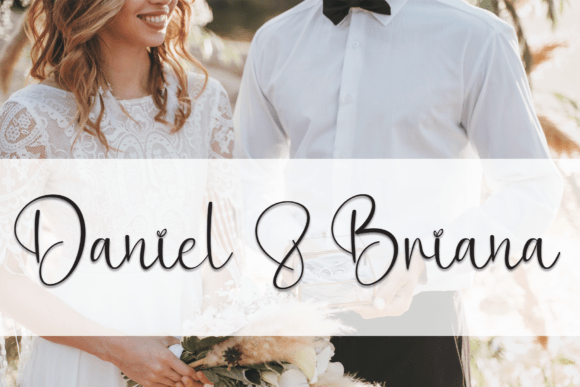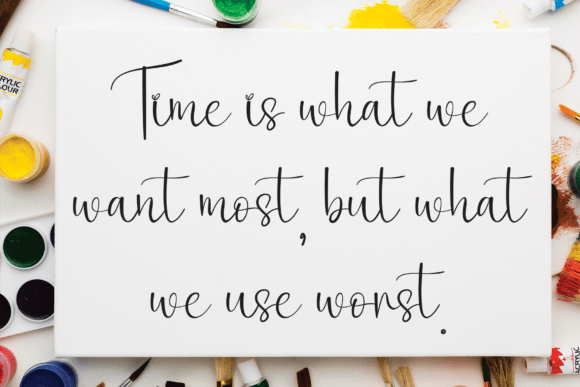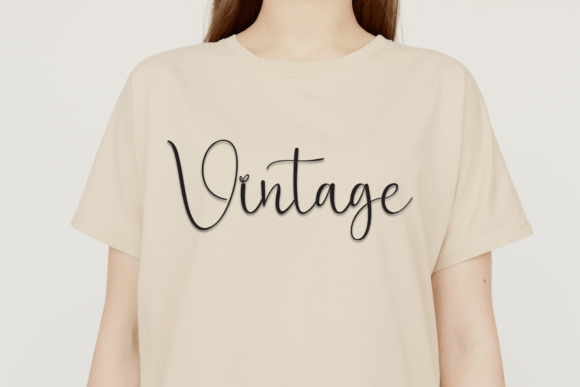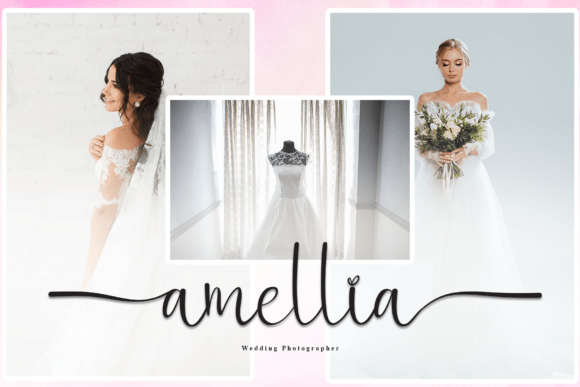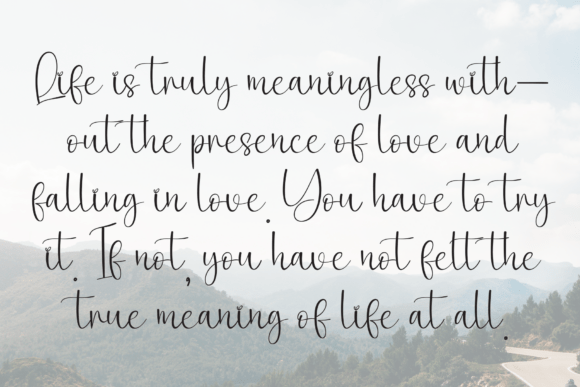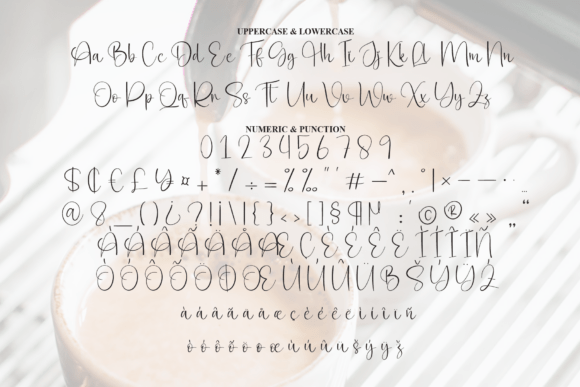
Coffee Font: Elevate Your Designs with a Stylish Script Font
Are you a designer or crafter looking for a font that exudes creativity and modern elegance? Look no further than the Coffee Font, a stylish script font that is sure to elevate your designs to the next level. With its flowing strokes, graceful curves, and expressive letterforms, this font captures the beauty of hand-drawn calligraphy with a contemporary flair.
What Makes Coffee Font So Special?
Coffee Font is more than just a font – it’s an artistic statement. Its unique blend of traditional calligraphy and modern design makes it perfect for a wide range of applications, from logos and invitations to packaging and social media graphics. The font’s natural rhythm and refined details deliver both visual charm and versatility, making it an ideal choice for designers and crafters who want to add a touch of sophistication to their work.
Key Features of Coffee Font
- Flowing Strokes: Coffee Font features flowing strokes that give it a dynamic and elegant feel.
- Graceful Curves: The font’s graceful curves add a touch of sophistication and refinement to any design.
- Expressive Letterforms: Each letterform is carefully crafted to convey a sense of creativity and modernity.
- Hand-Drawn Calligraphy: Coffee Font captures the beauty of hand-drawn calligraphy with a contemporary flair.
Uses for Coffee Font
Coffee Font is incredibly versatile and can be used for a wide range of applications, including:
- Logos: Create a stylish and sophisticated logo for your business or brand.
- Invitations: Add a touch of elegance to your wedding invitations, birthday party invites, or other special occasion cards.
- Packaging: Use Coffee Font to create eye-catching packaging that stands out on store shelves.
- Social Media Graphics: Elevate your social media graphics with a font that is both stylish and easy to read.
Why Choose Coffee Font?
- Unique Style: Coffee Font has a unique style that sets it apart from other fonts.
- High-Quality Design: The font is carefully crafted to ensure that it is both visually appealing and easy to read.
- Versatility: Coffee Font can be used for a wide range of applications, making it a great value for designers and crafters.
Tips for Using Coffee Font
Here are a few tips for getting the most out of Coffee Font:
- Use it Sparingly: Coffee Font is a statement font, so use it sparingly to avoid overwhelming your design.
- Pair it with Other Fonts: Experiment with pairing Coffee Font with other fonts to create a unique and visually appealing design.
- Adjust the Size: Adjust the size of the font to create visual interest and hierarchy in your design.